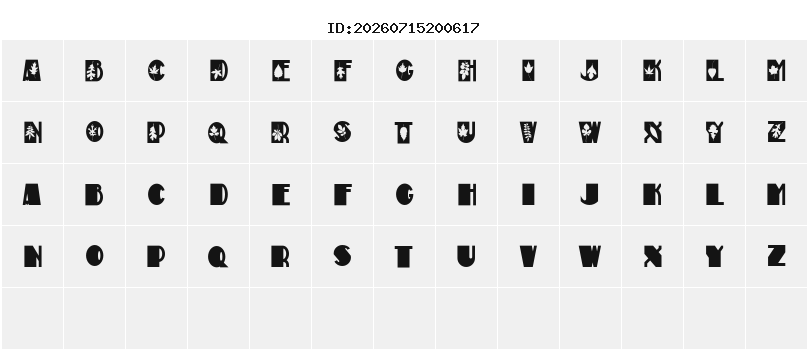
• Font Name: Autumn Deco
• Full Font Name: Autumn Deco
Autumn Deco.ttf is a modern, elegant sans-serif font designed for ultimate readability and visual harmony. Perfect for branding, headlines, web design, and print materials.